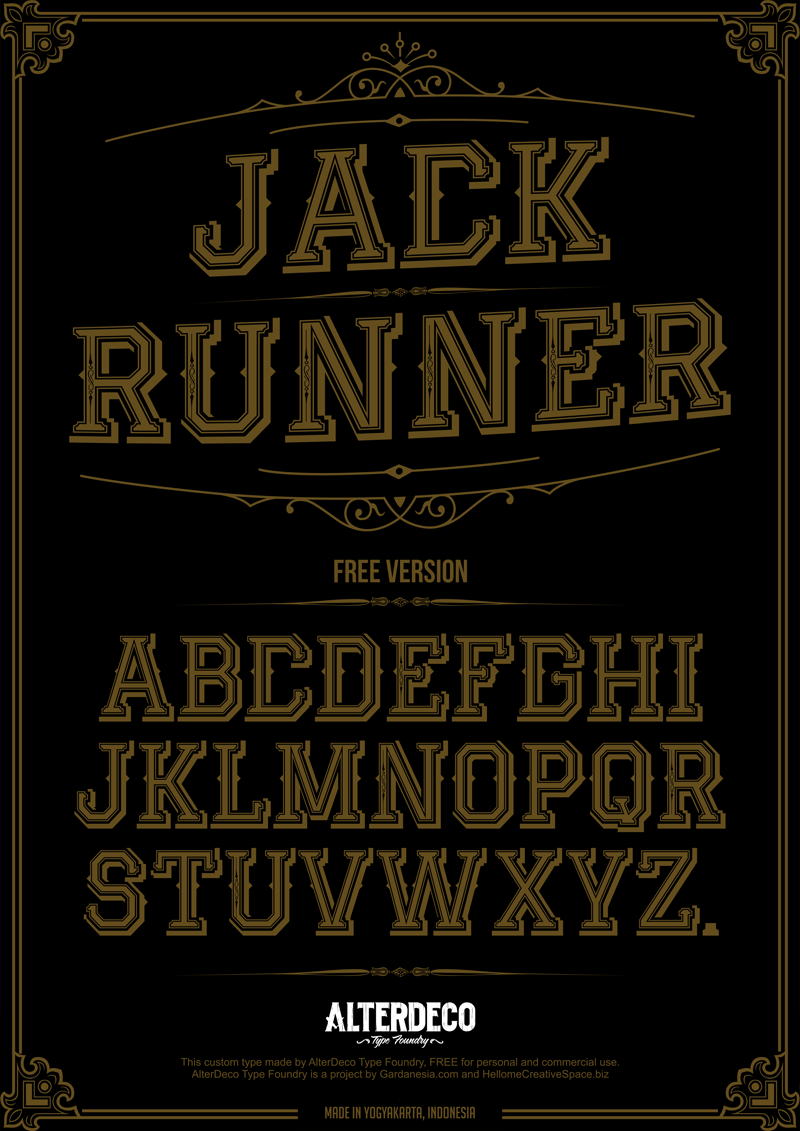
Jack Runner is inspired by vintage typefaces and retro baseball typography combining with a victorian floral. NOTE : This is free version, free for personal use, and commercial use (with a permition, if you don't mind),if you want the full version , please contact me at helloadit@gmail.com |